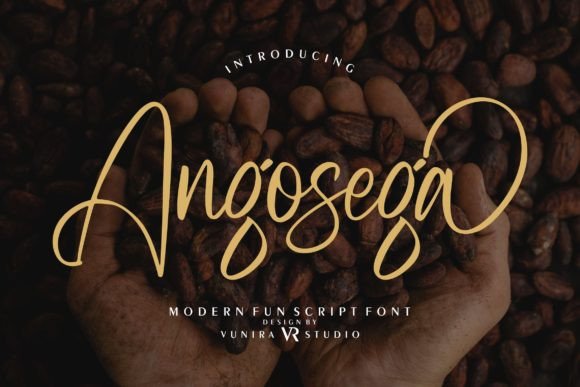
Prepare to be mesmerized by Angosega, a font that has captivated the hearts of designers worldwide, leaving an indelible mark on the world of modern logos. Step into a realm of elegance and sophistication as you explore this handcrafted script font, meticulously designed by Vunira to transform your creative visions into breathtaking masterpieces.
Whether you're an Instagram aficionado seeking the perfect font to elevate your content, or a DIY enthusiast yearning for calligraphy scripts that add a personal touch to your projects, Angosega is the ultimate font companion. Its enchanting curves and graceful strokes will effortlessly transform your words into works of art, capturing the attention of all who lay their eyes upon them.
Unlock the boundless possibilities of Angosega and witness how effortlessly it breathes life into your creative endeavors. From captivating social media posts that leave your followers spellbound to heartfelt greeting cards that convey your emotions with unparalleled eloquence, the possibilities are endless. Unleash your imagination and embark on a creative journey where Angosega's magic knows no bounds.
Indulge in the beauty of Angosega and let its charm cast a spell on your designs. Experience the joy of creating logos that exude professionalism and leave a lasting impression on your clients. Manifest your design dreams with Angosega and watch as your artistic prowess flourishes beyond your wildest imagination.